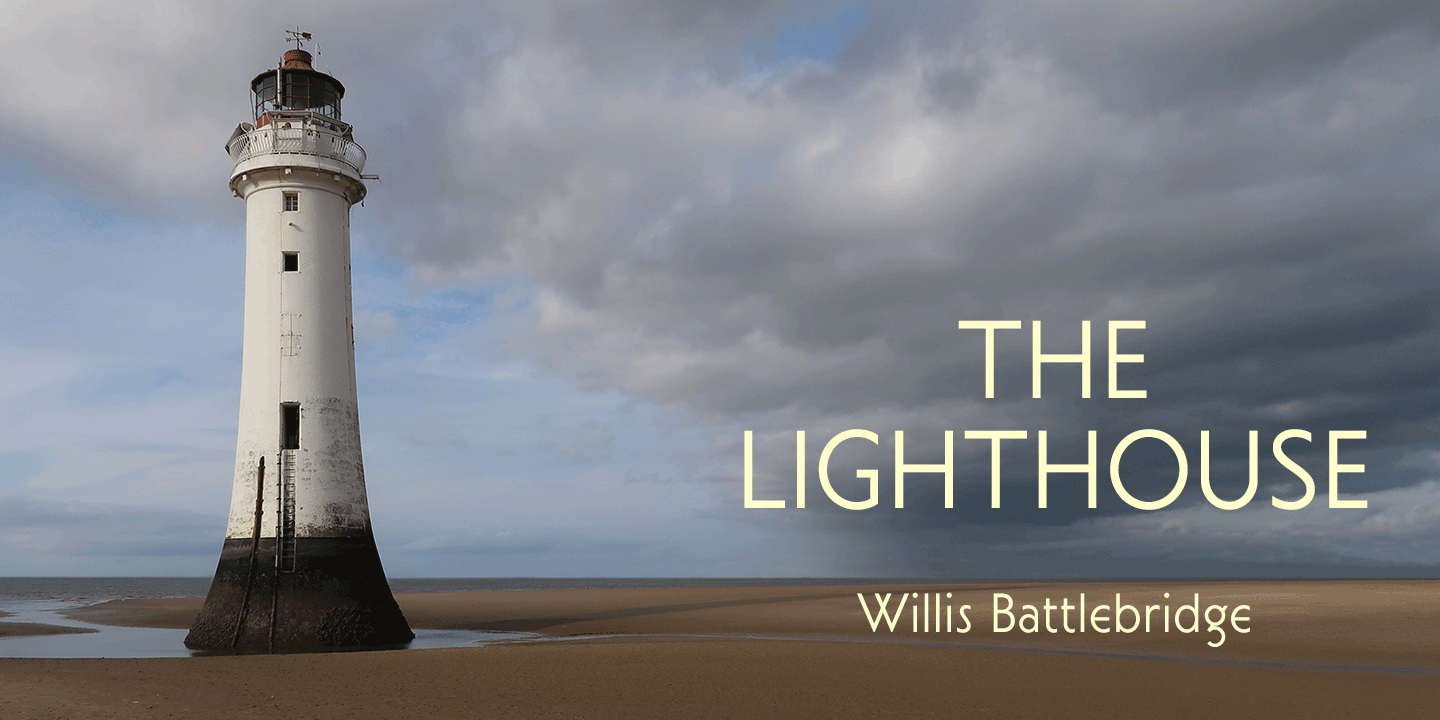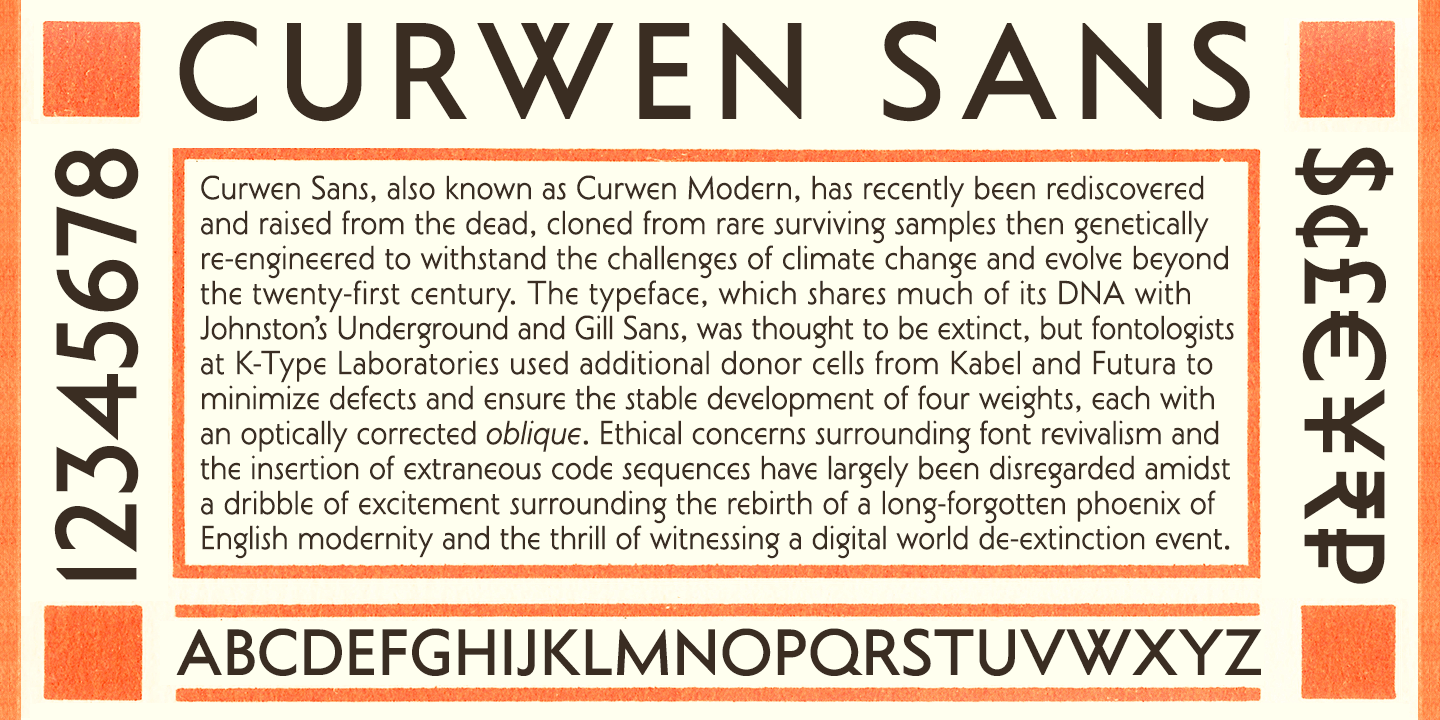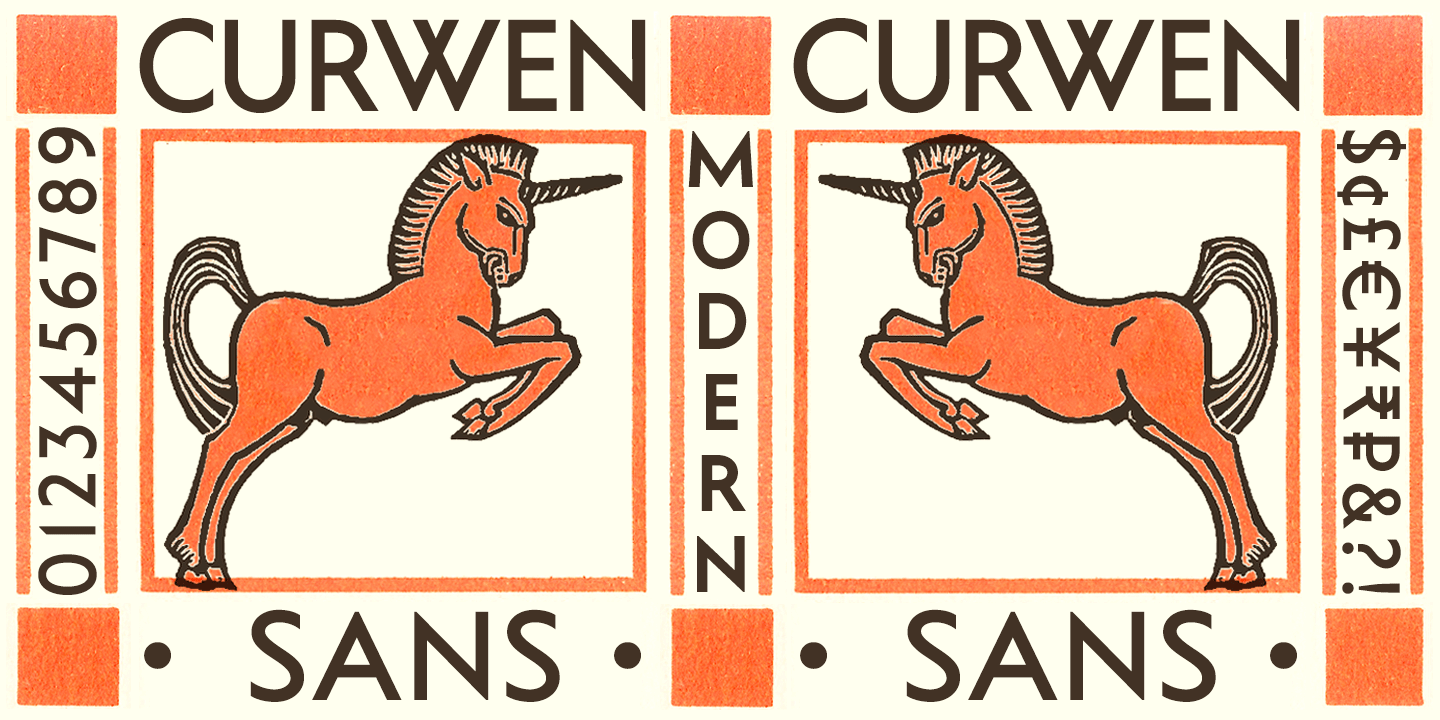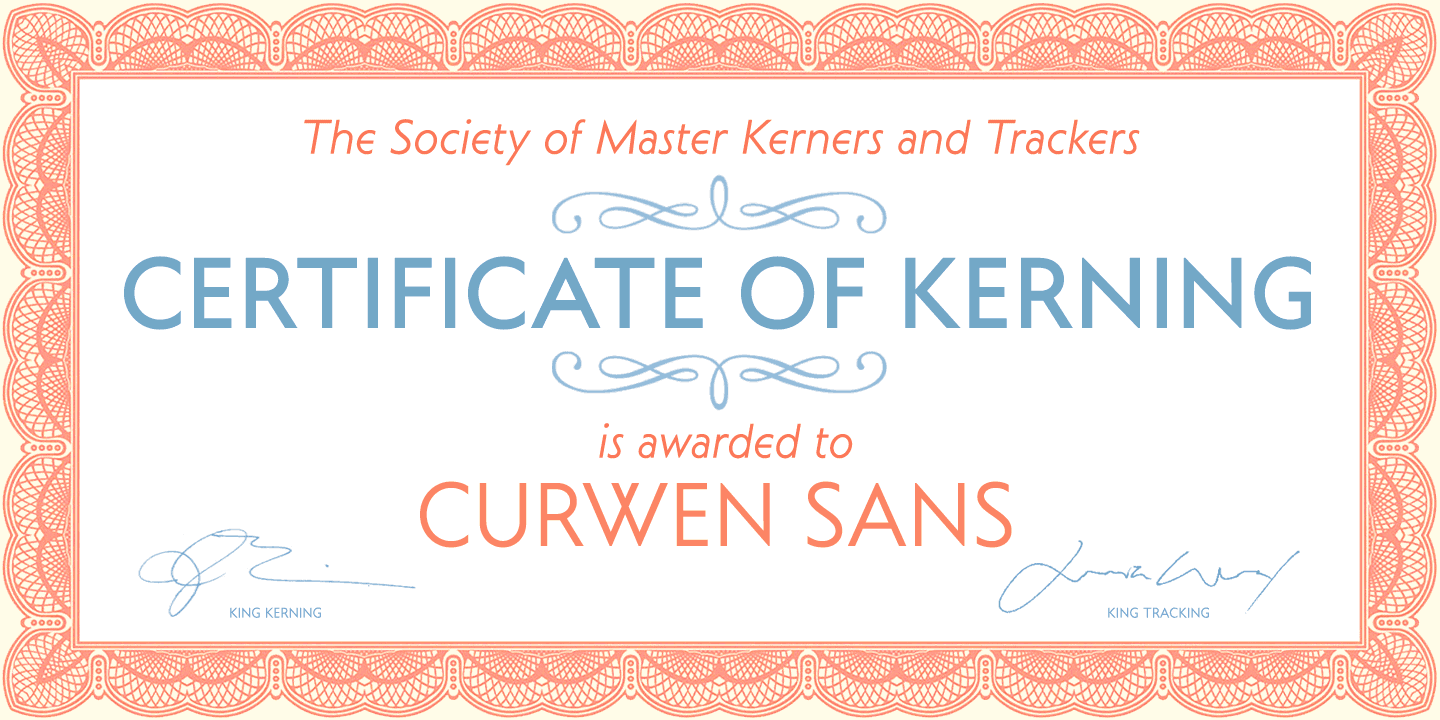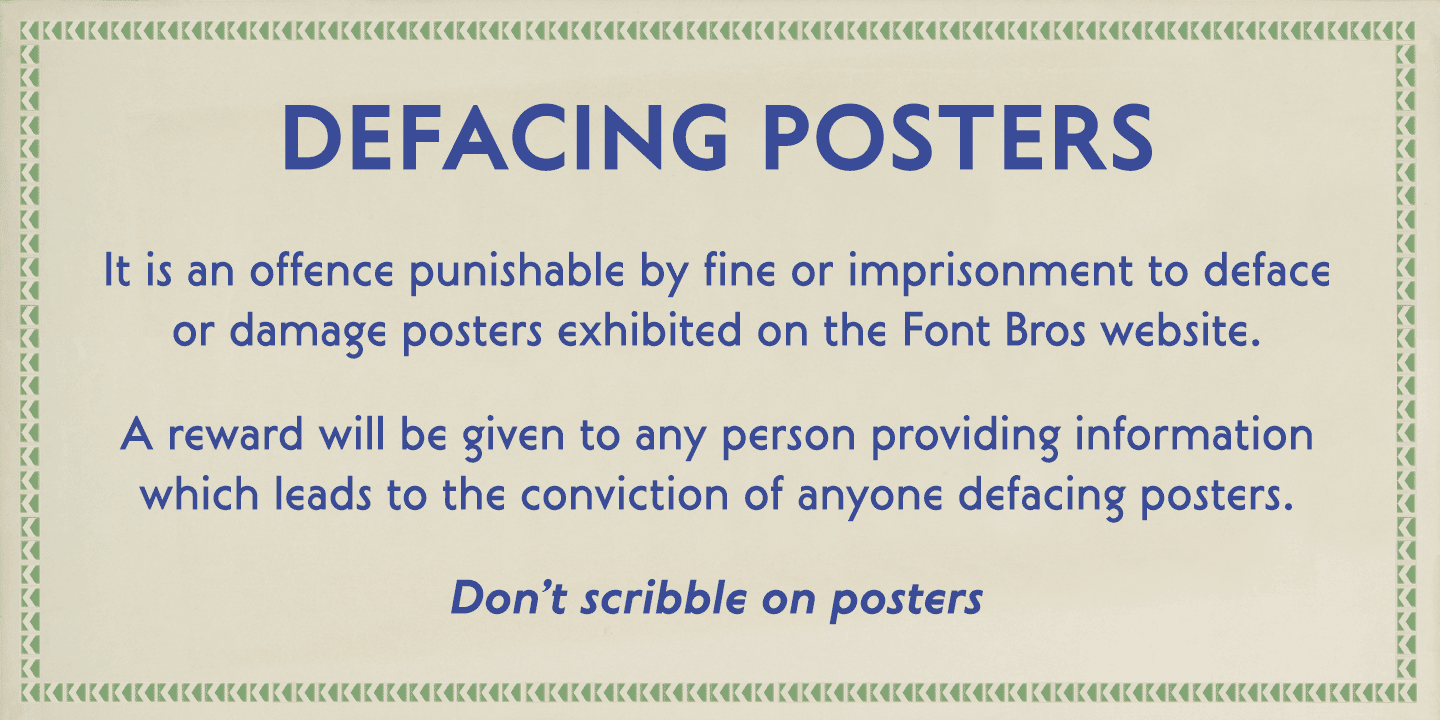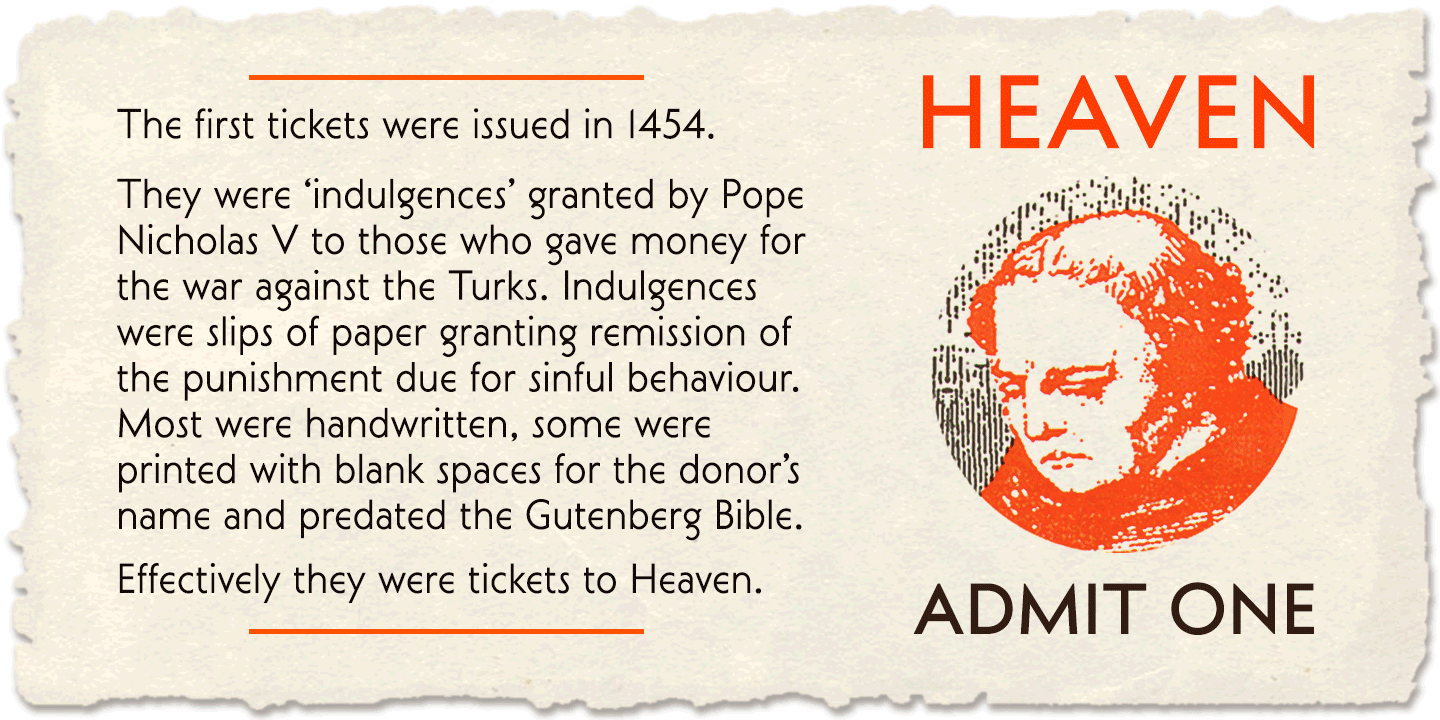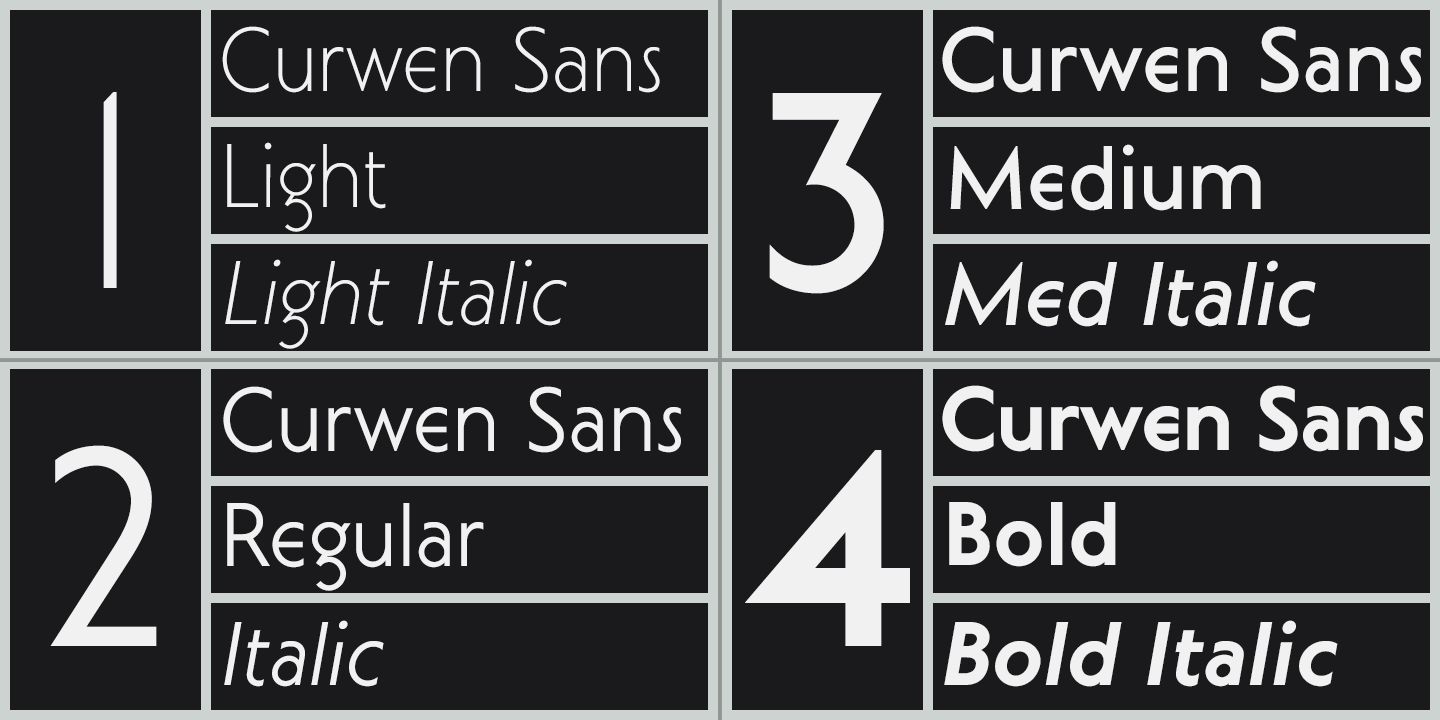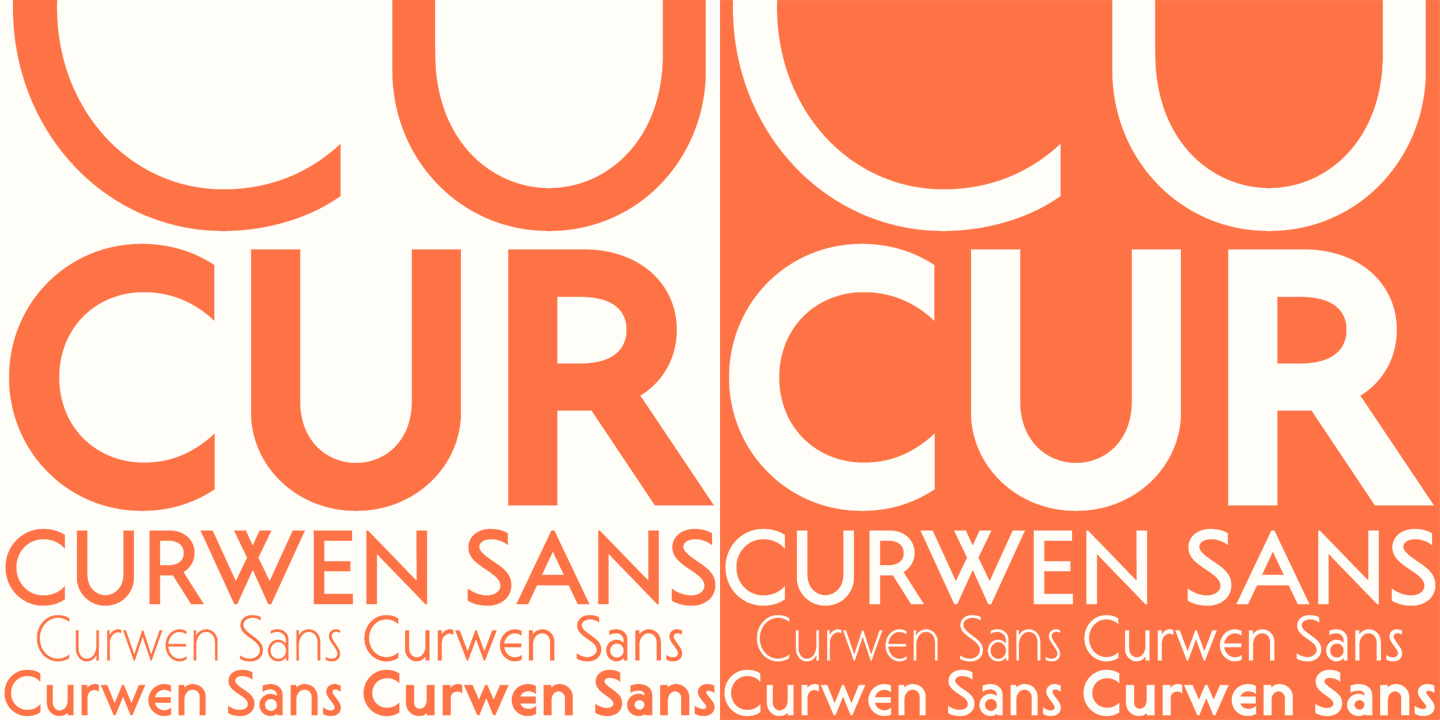
Curwen Sans
Font Family by K-Type
Curwen Sans is a monoline sans-serif dating from the early twentieth century. Though contemporary with Johnston's Underground and Gill Sans, and emerging from the same artistic milieu, Curwen Sans was created solely for in-house use at the Curwen Press in London so never achieved a wide audience or recognition.
The original face was cut only in a Medium weight, but the new digital family consists of four weights, each with an optically corrected Oblique, and all containing a full complement of Latin Extended-A characters.